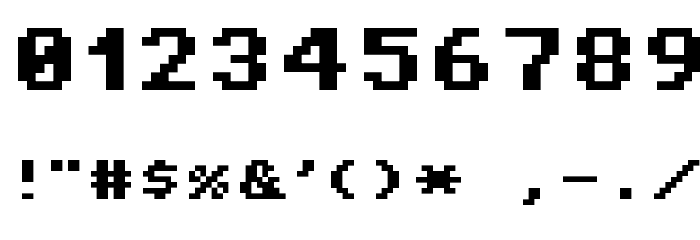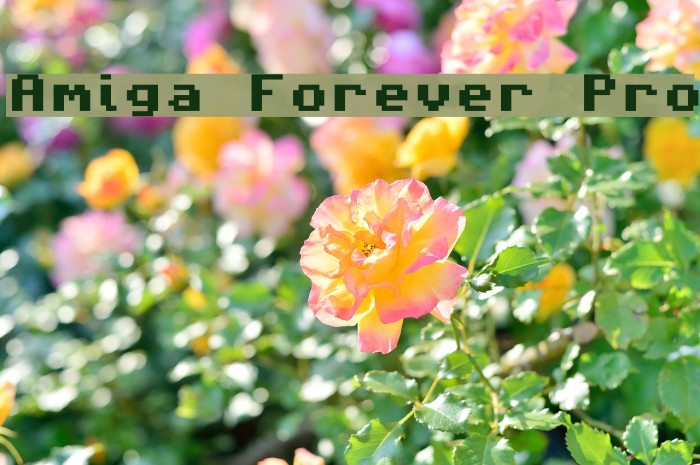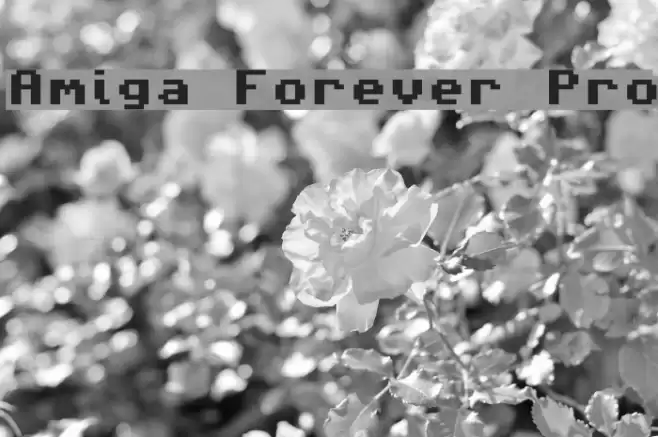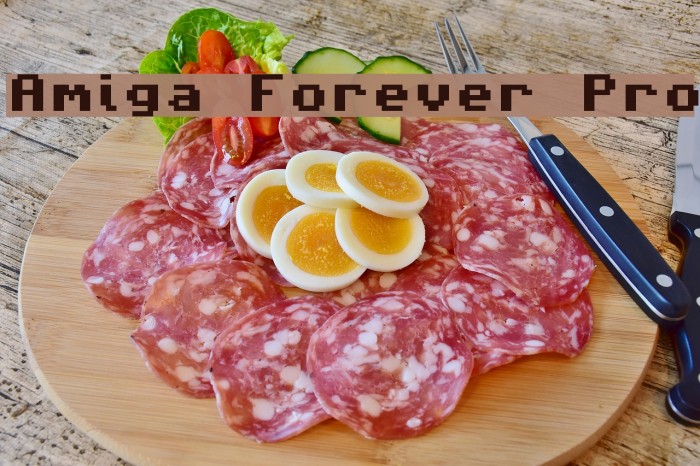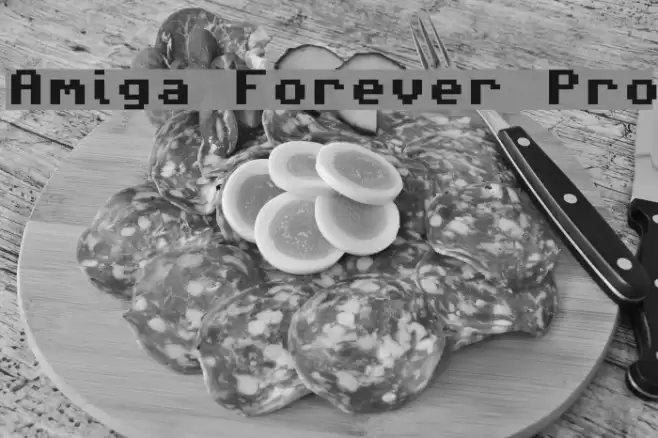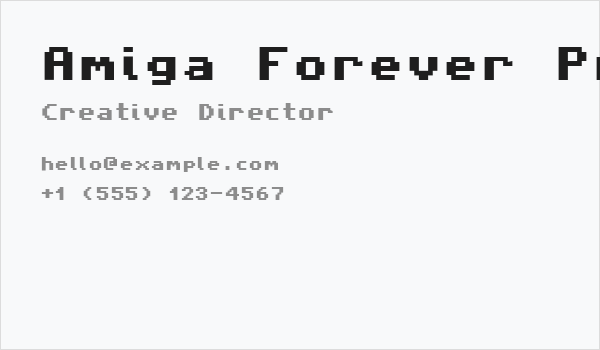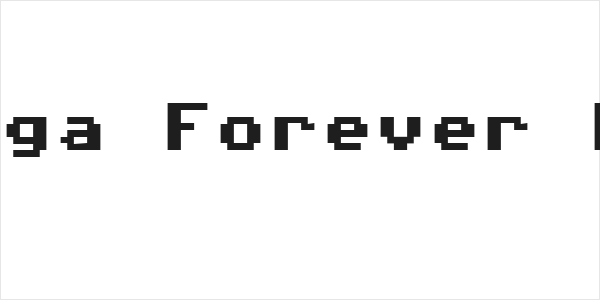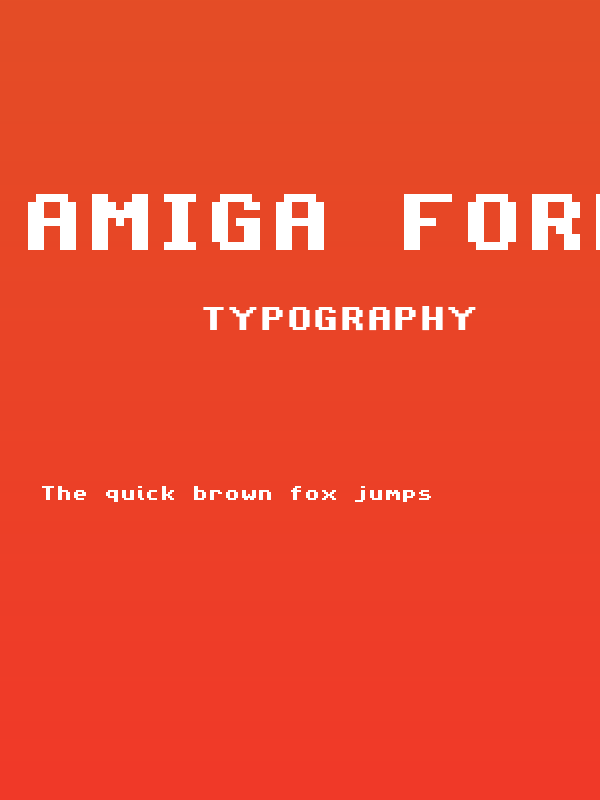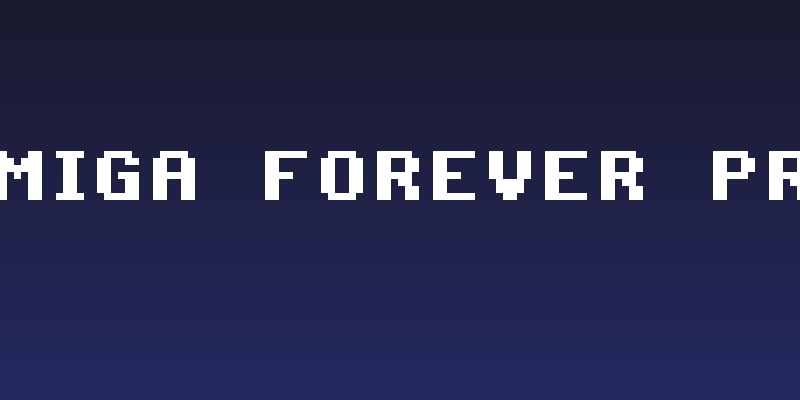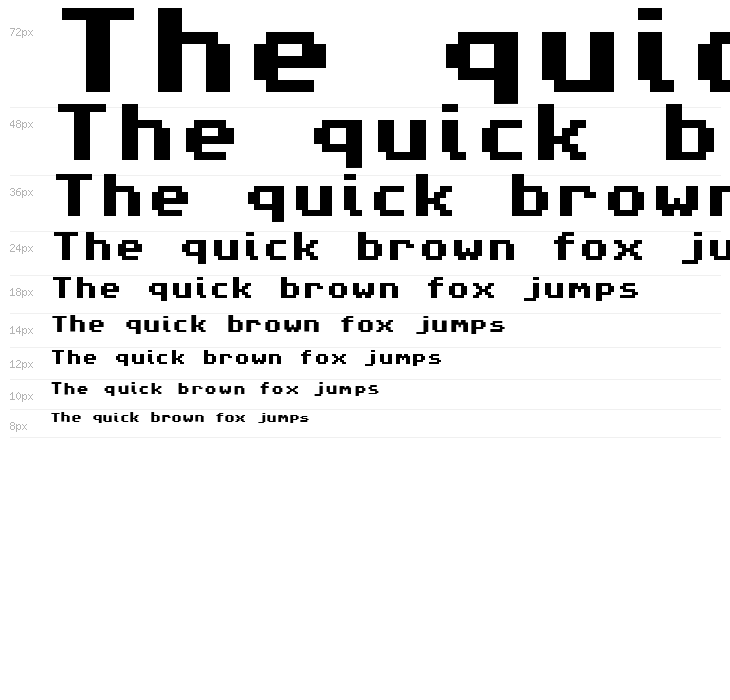
Amiga Forever Pro Font
| Kategorien | Decorative |
| Gesamtstil | Vintage |
| Anwendungsfall | Logos, Headlines, Digital Art |
| Vorgeschlagene Projekte | Ideal for retro video game designs, digital art projects, and any creative work that seeks to capture the essence of early computing aesthetics. |